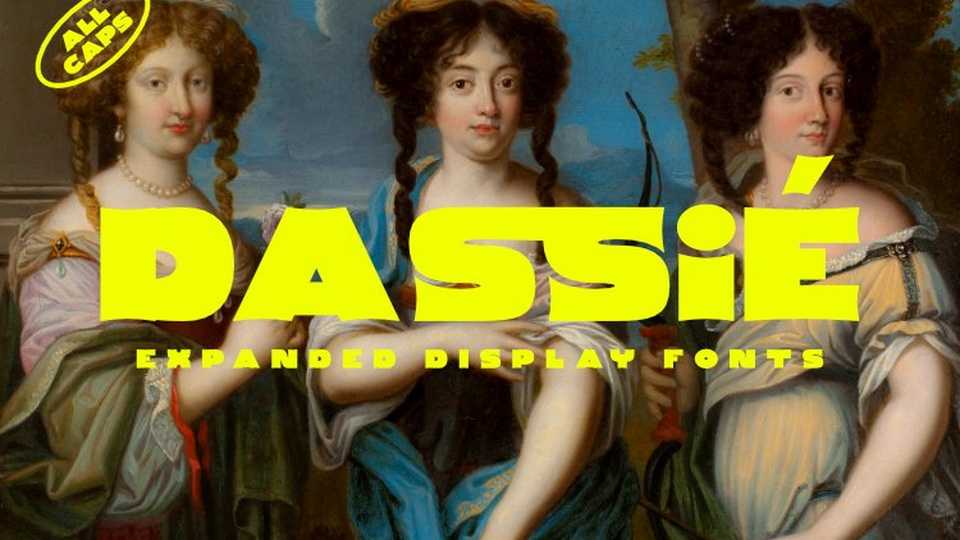
Download Dassie font, an expanded display typeface to create new ideas for your design projects. Dassie is good to be applied to various types of designs for young people today and goes back to the past.
Designer: Prioritype Co